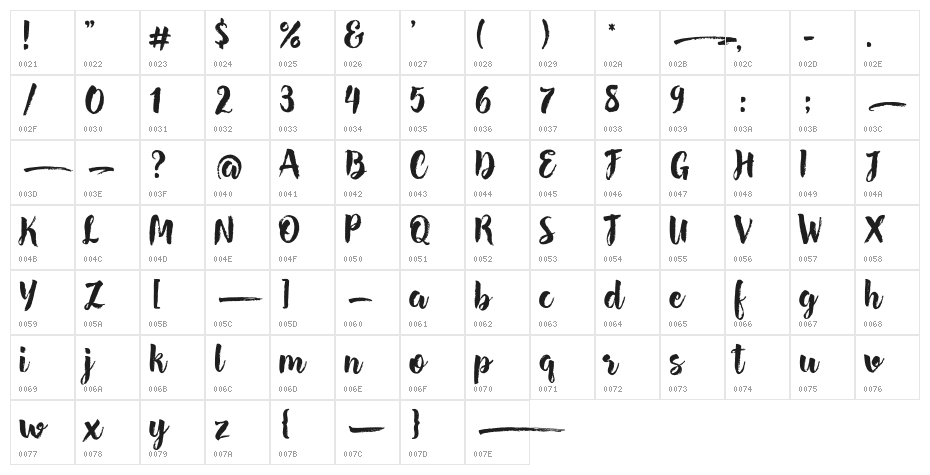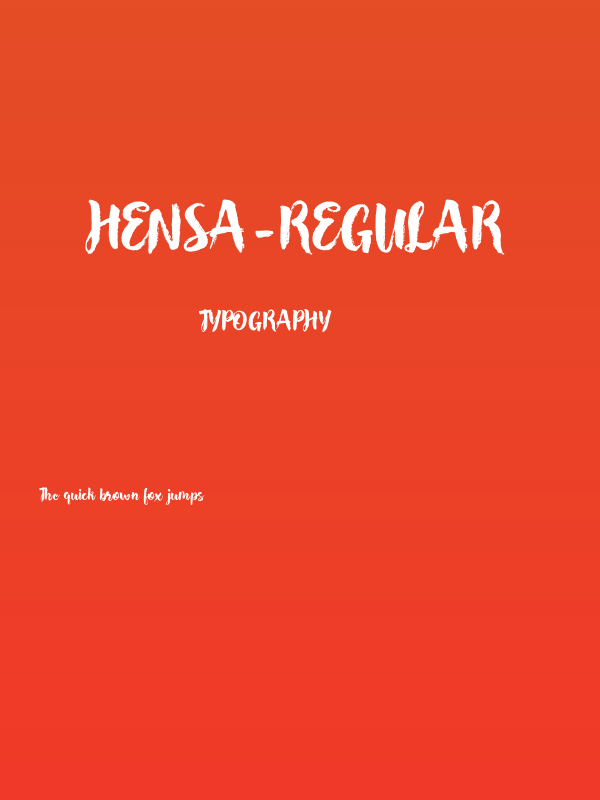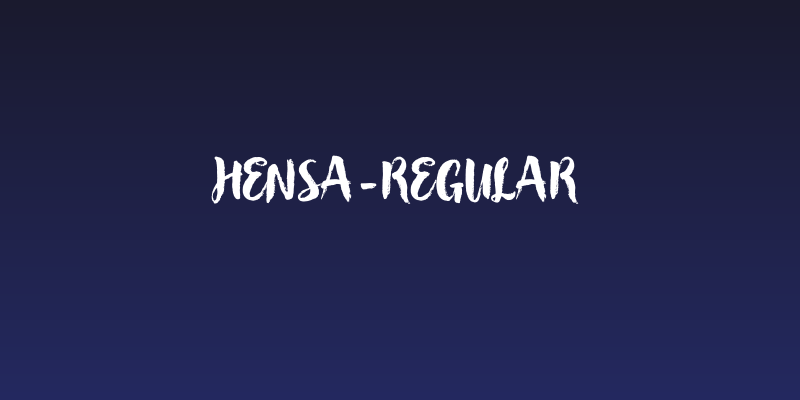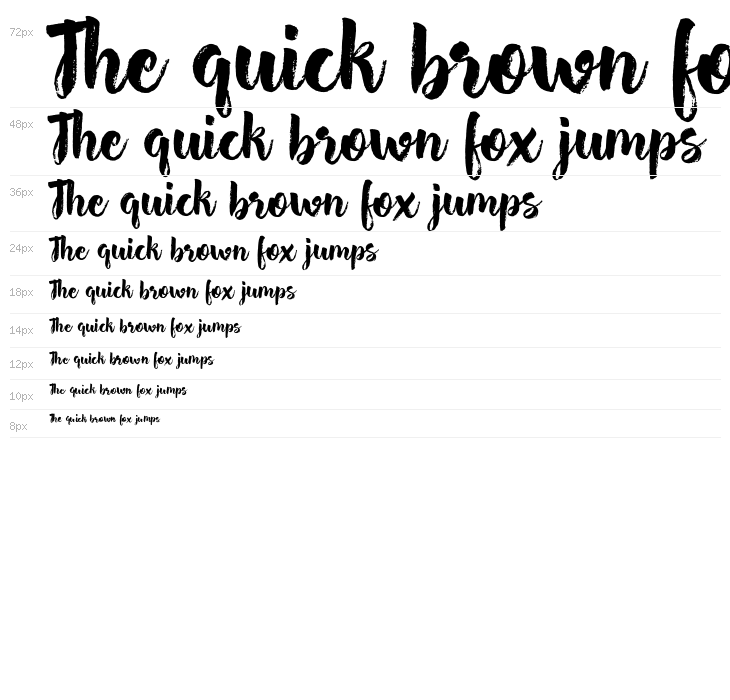
Hensa-Regular Font
Hensa-Regular Description
This font features a bold and expressive handwritten style, characterized by its brush-like strokes and dynamic flow. Each letter is crafted with a sense of movement, giving it a lively and energetic appearance. The uppercase and lowercase letters maintain a consistent style, with varying stroke widths that add to its artistic flair. The numerals and special characters are equally expressive, making the font versatile for creative projects. Its textured appearance suggests a hand-painted quality, ideal for designs that require a personal touch.
| Use Case | Logos, Headlines, Posters |
| Proposed Projects | Ideal for branding, posters, invitations, and any project that benefits from a personal, artistic touch. |